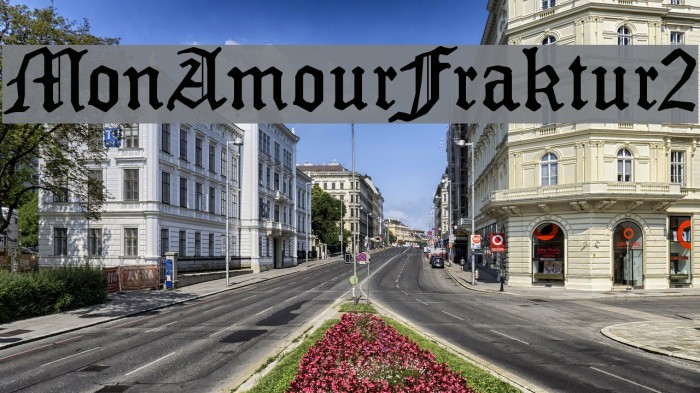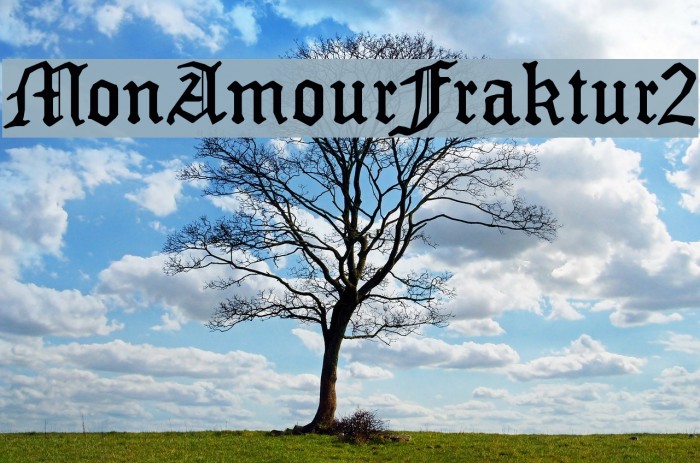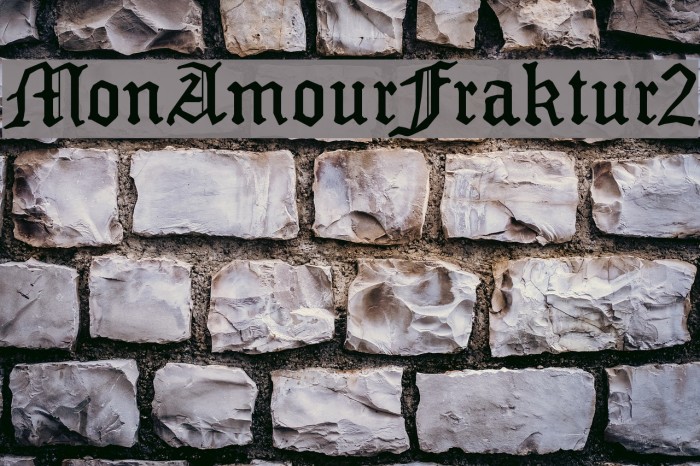
MonAmourFraktur2 Font
This font exhibits a classic blackletter style, characterized by its ornate and intricate design. The letters are bold and angular, with sharp edges and a medieval aesthetic. The uppercase letters are particularly elaborate, featuring decorative flourishes and a strong vertical emphasis. The lowercase letters maintain the same level of detail, with a consistent stroke weight that adds to the font's bold appearance. Numbers and special characters are designed to match the overall style, ensuring a cohesive look across all text elements. This font is ideal for projects that require a historical or gothic touch, offering a dramatic and eye-catching appearance.
A bold, ornate blackletter font with a medieval aesthetic.
- Proposed Projects: Ideal for historical documents, gothic-themed designs, book covers, and event invitations.
- Category: Blackletter
- Overall Style: Vintage